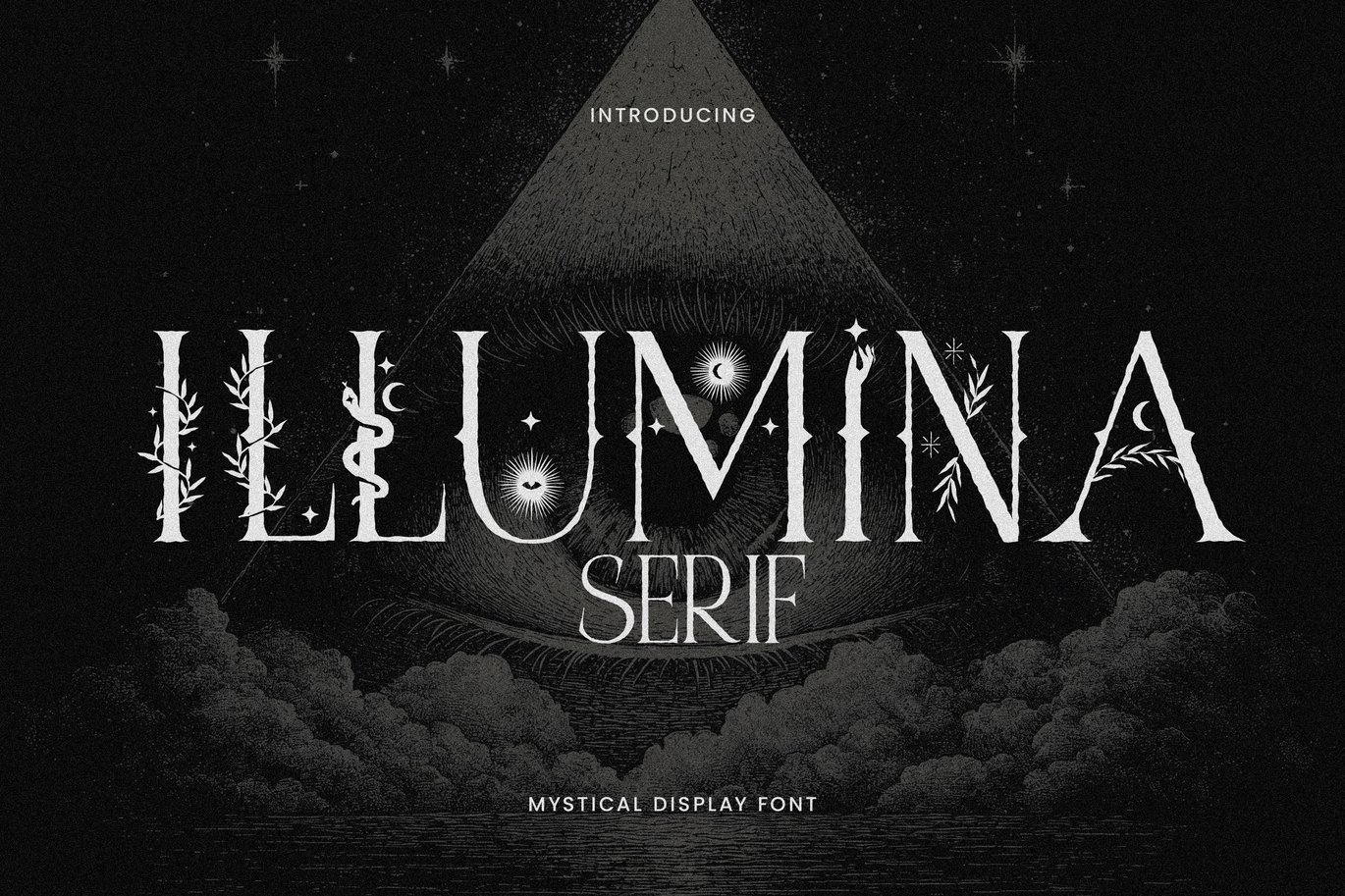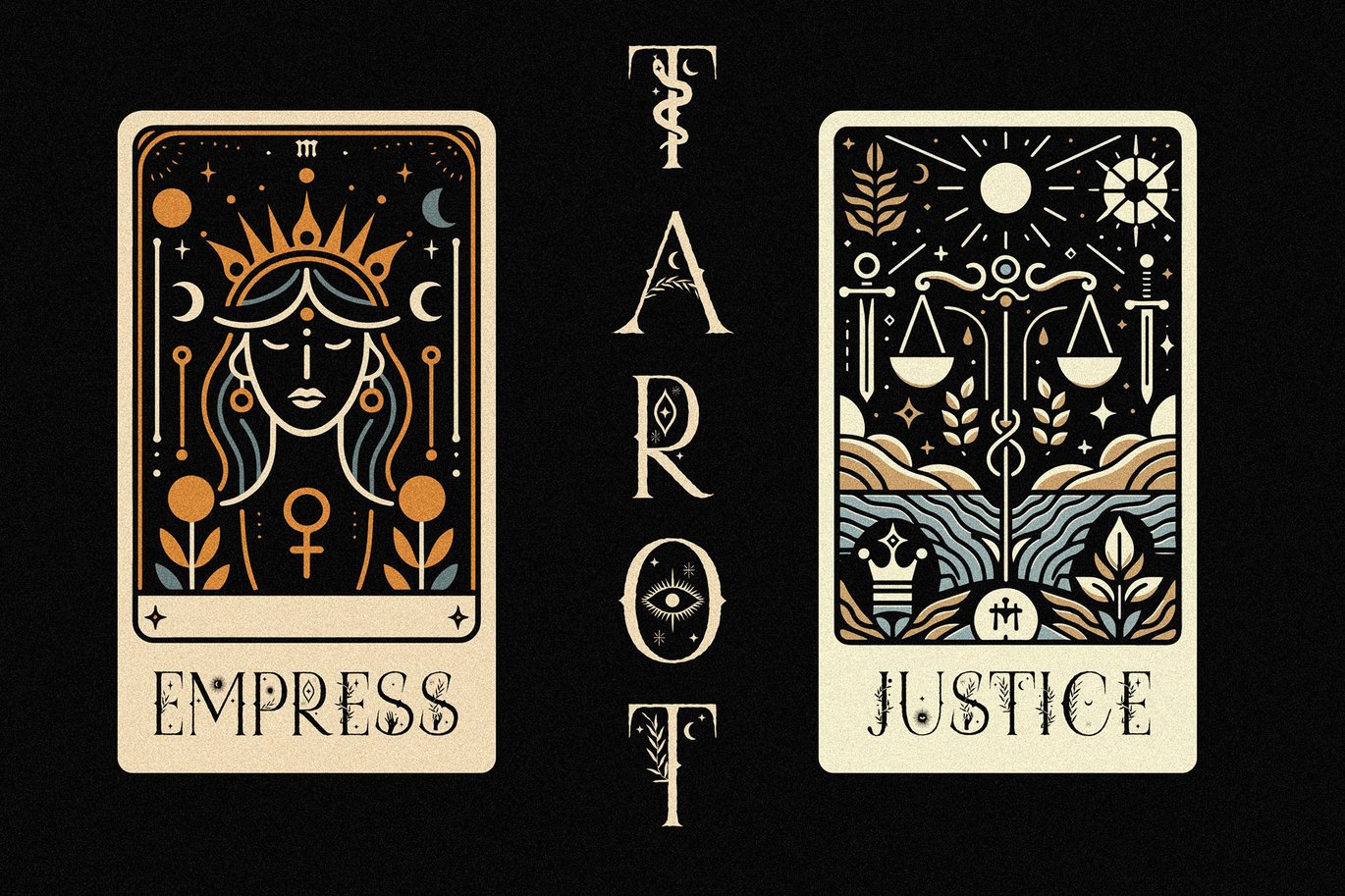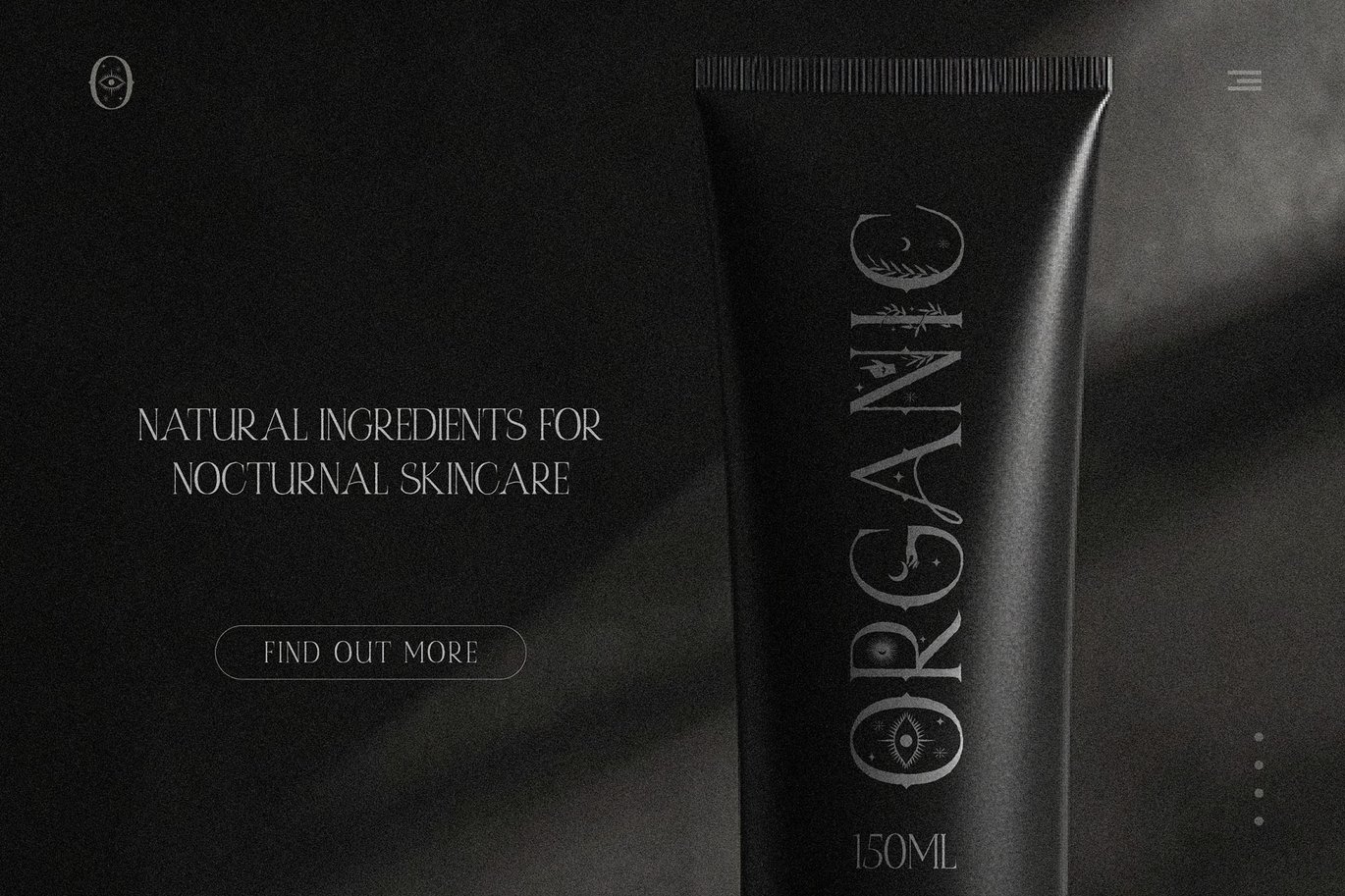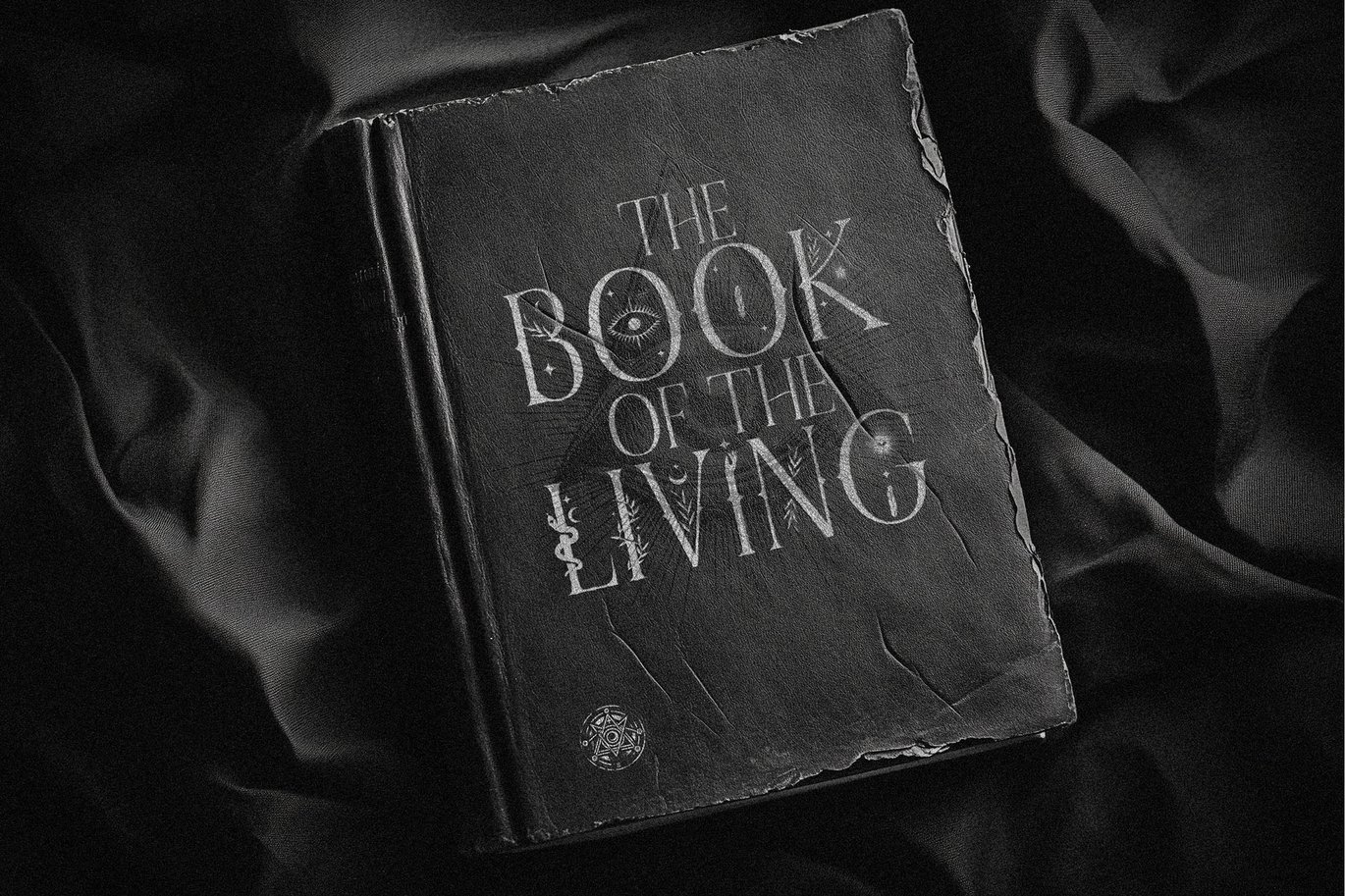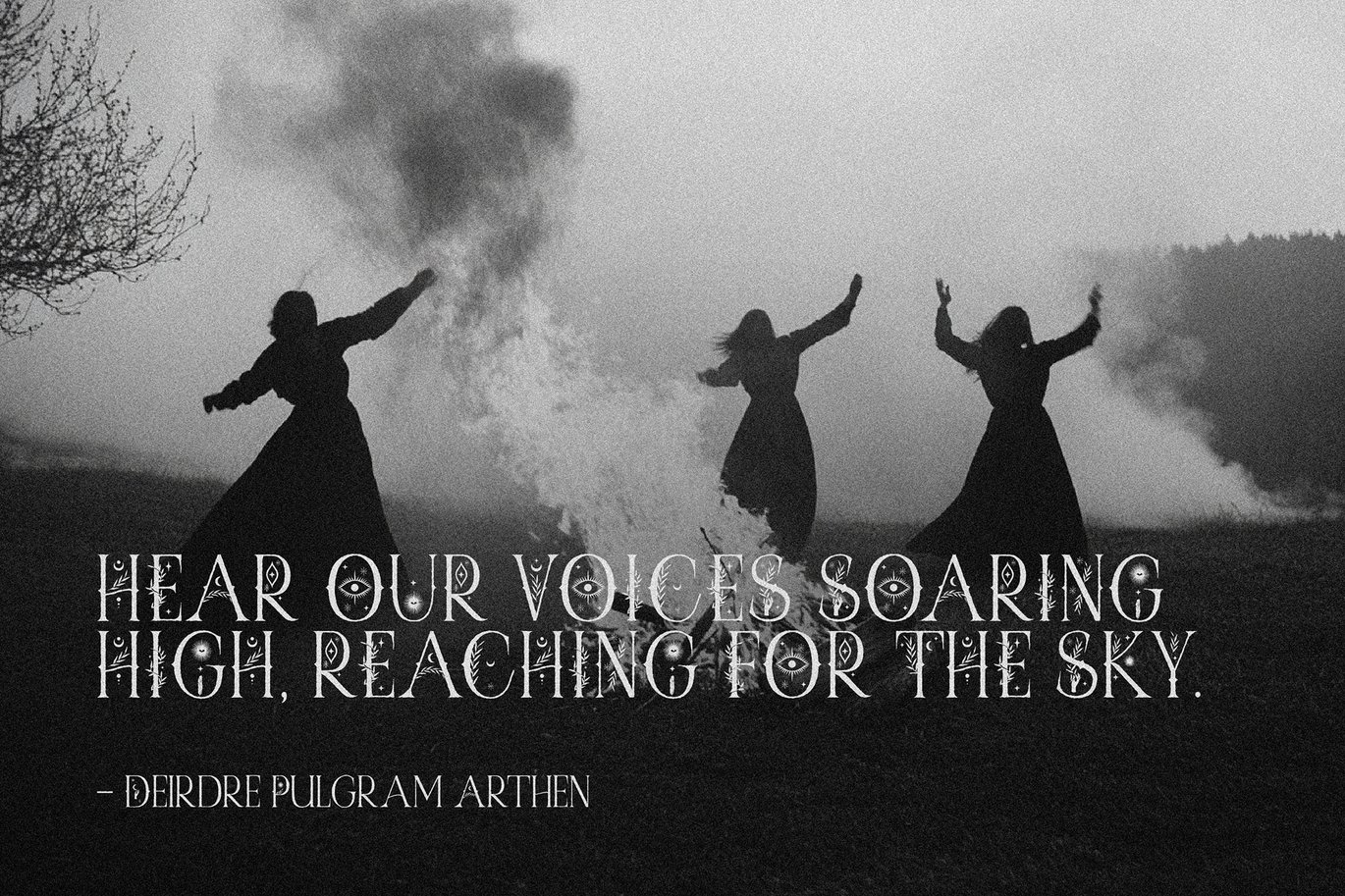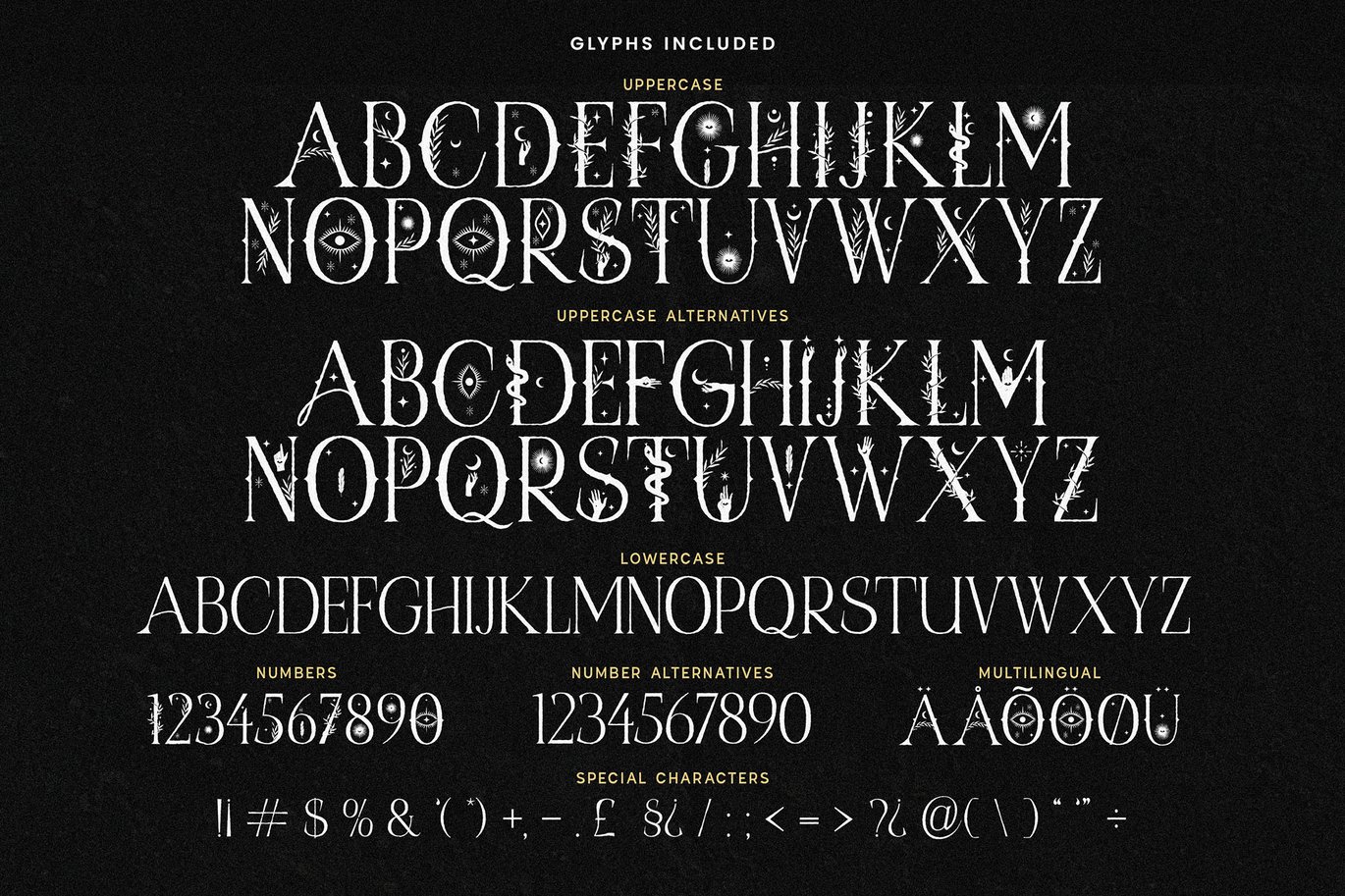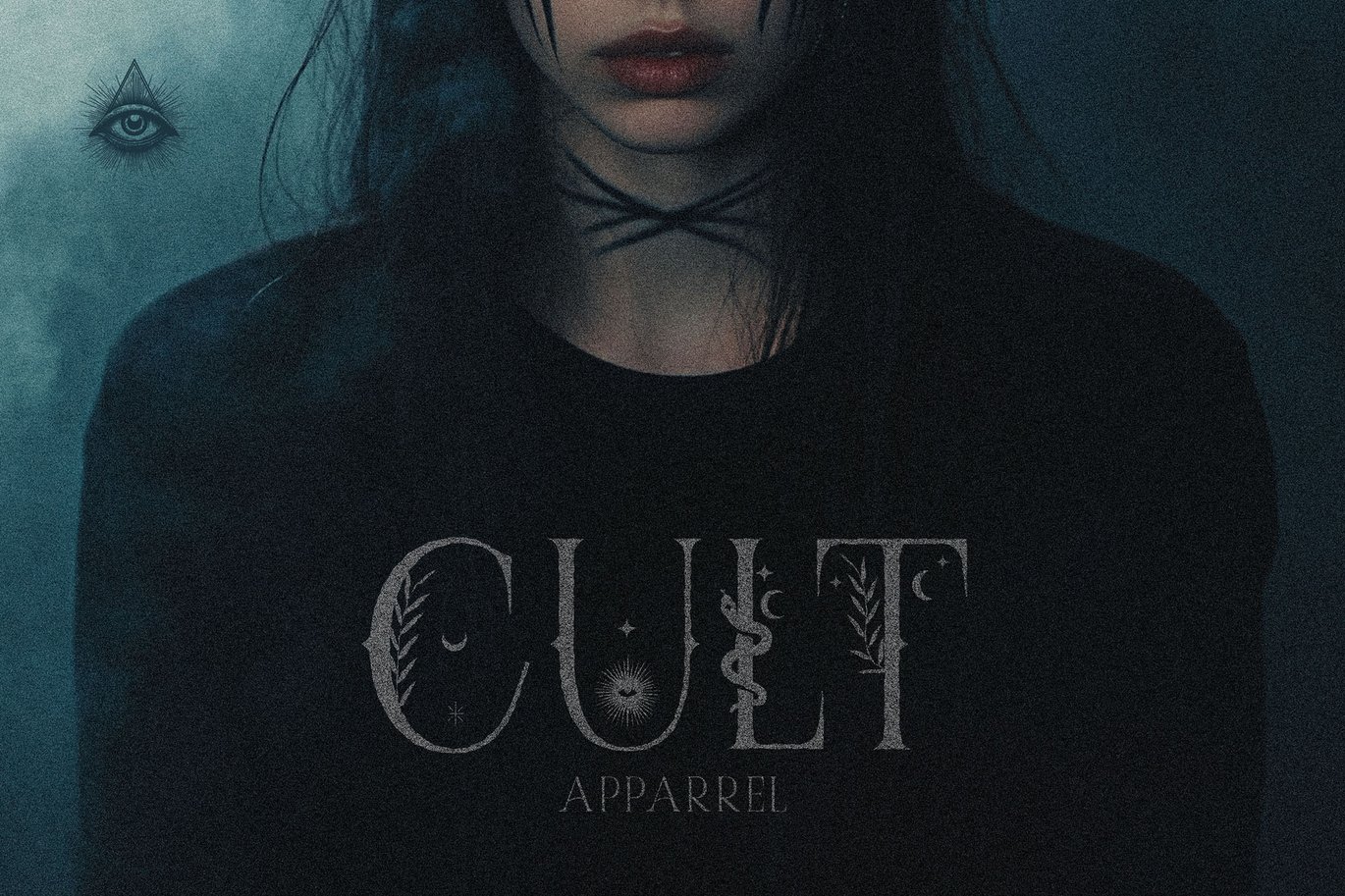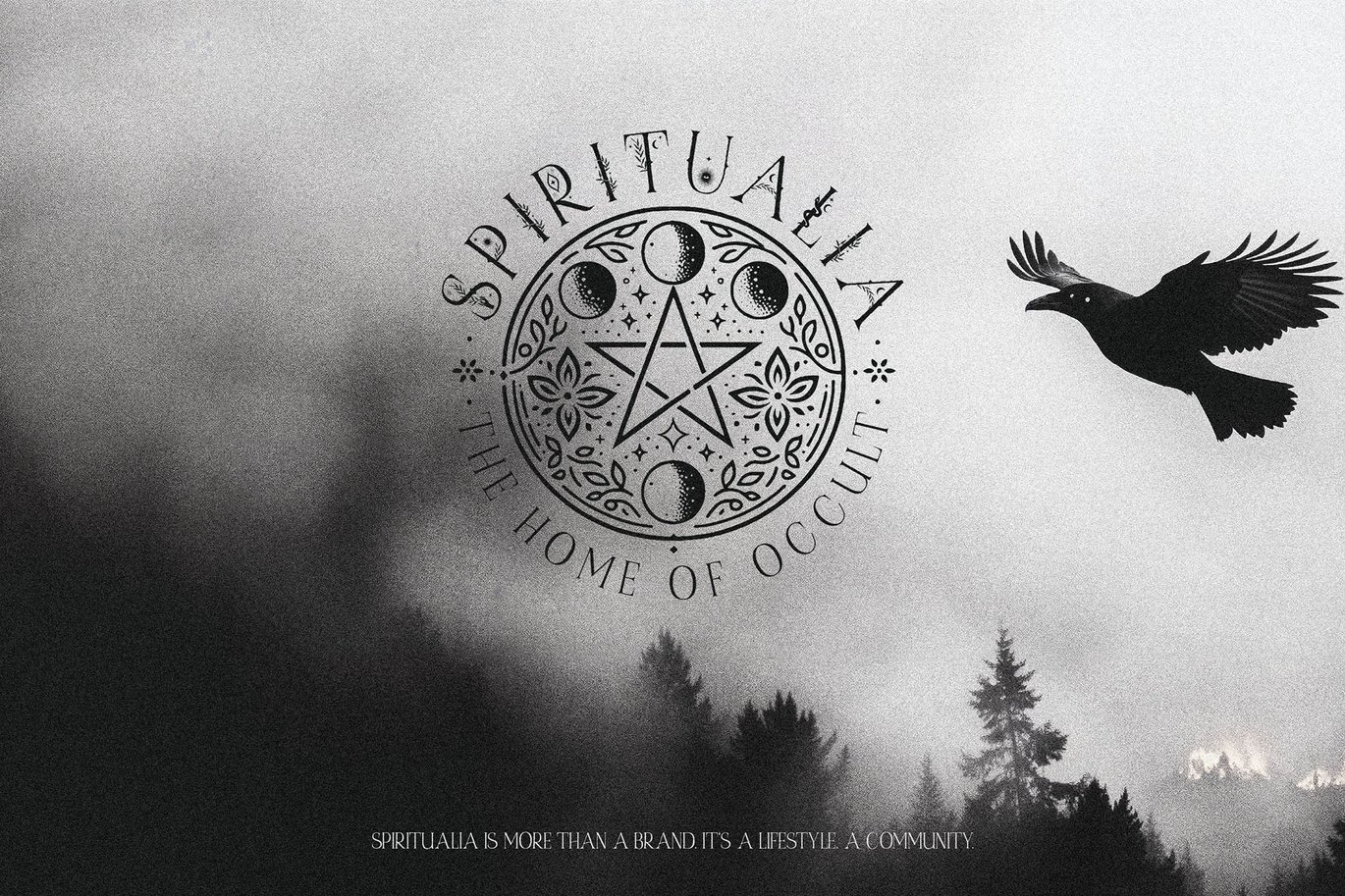
Illumina – Esoteric Tarot Display Font
Introducing Illumina – an esoteric display font with unique occult illustrations.
It’s a perfect font for all kinds of projects that require a bit of a mystical and magical vibe.
What’s more, the uppercase character set comes with alternatives for each and every letter (so you can make your designs more interesting!).